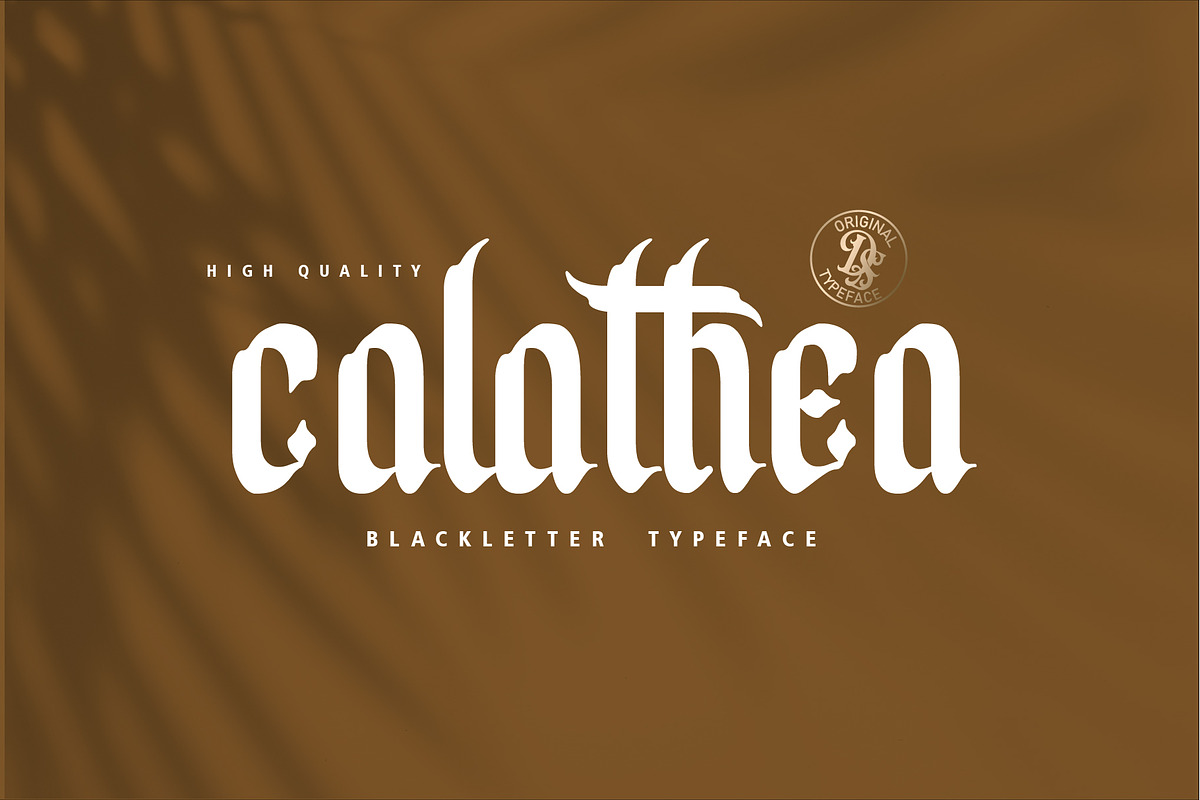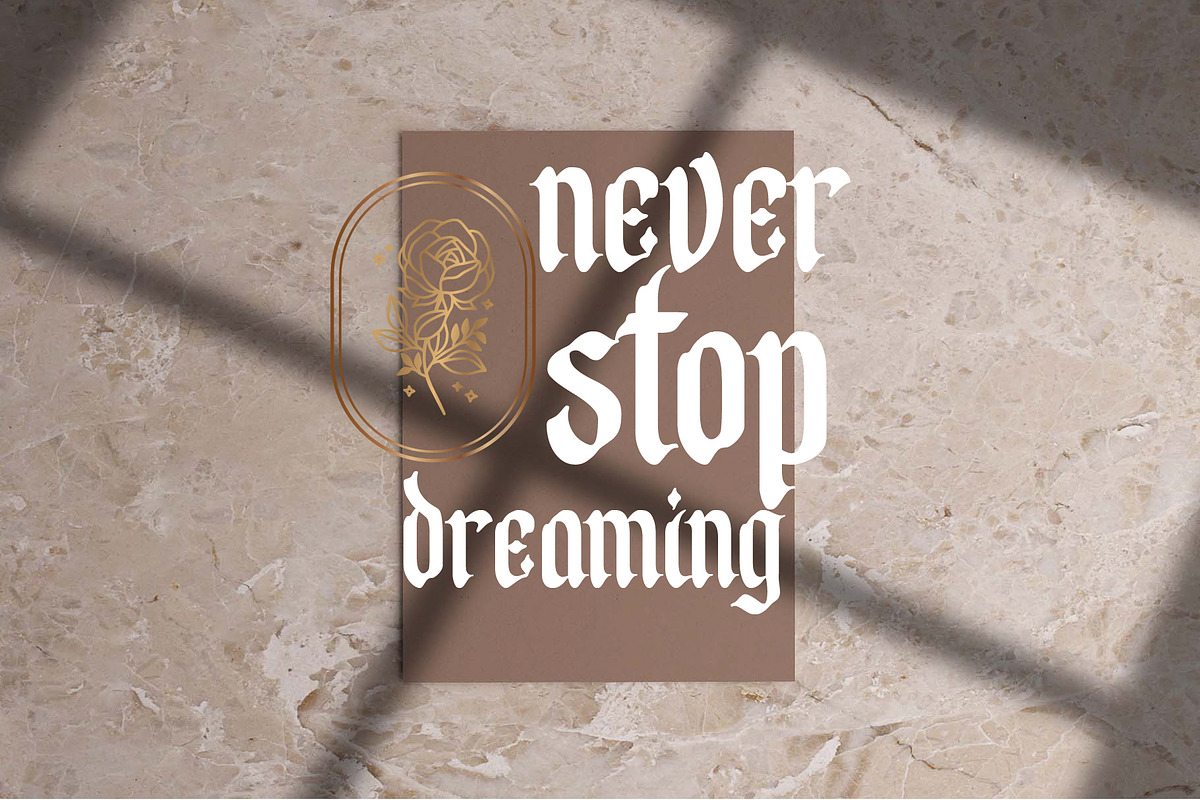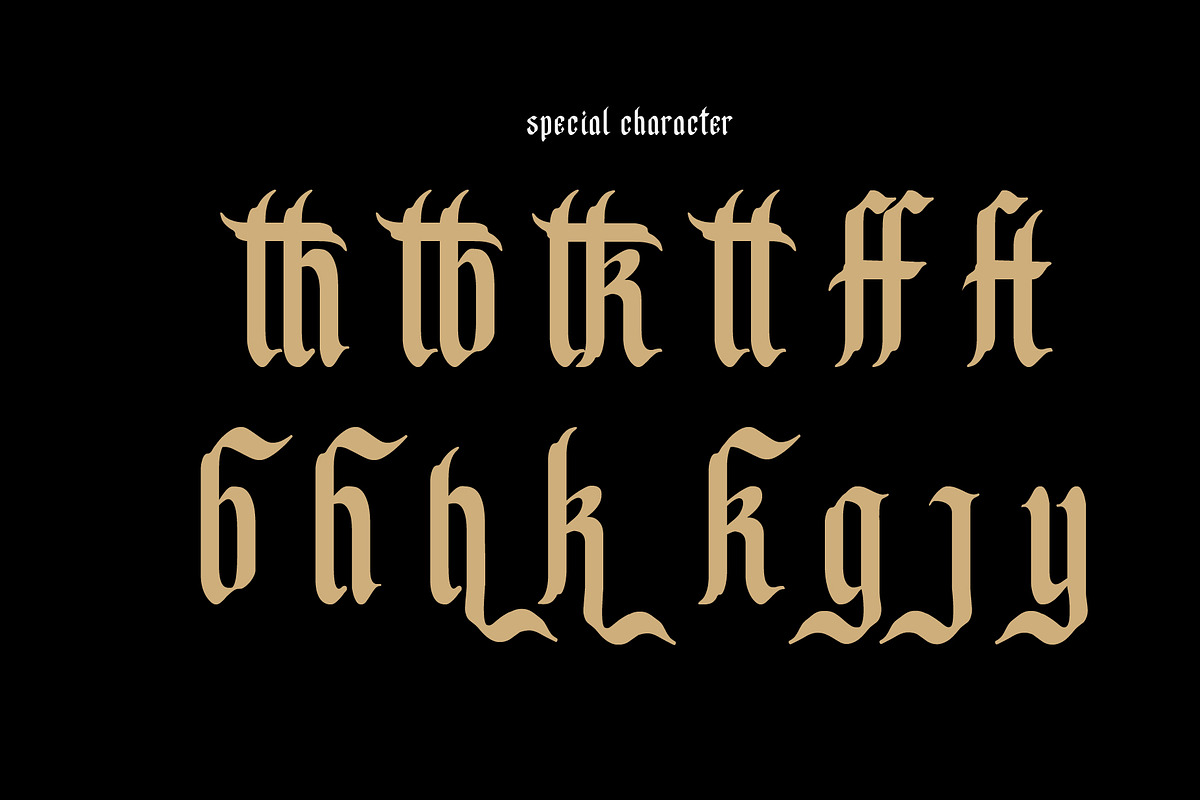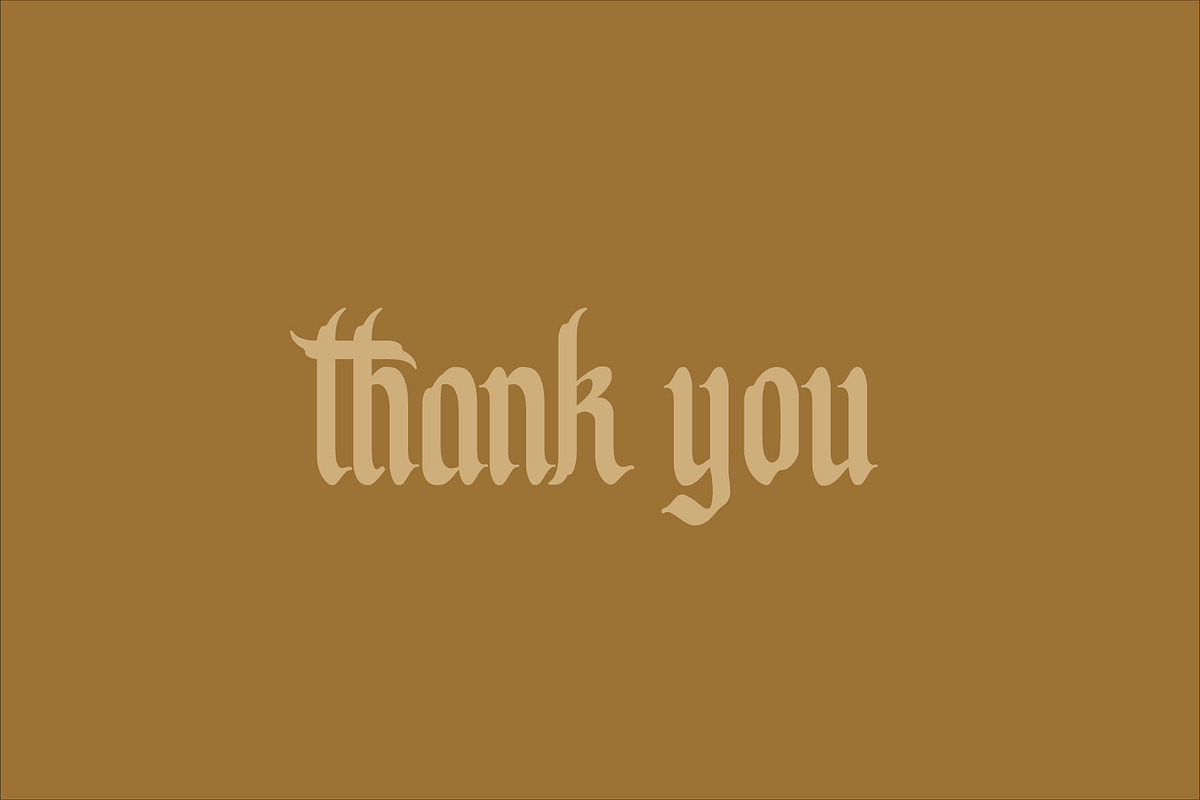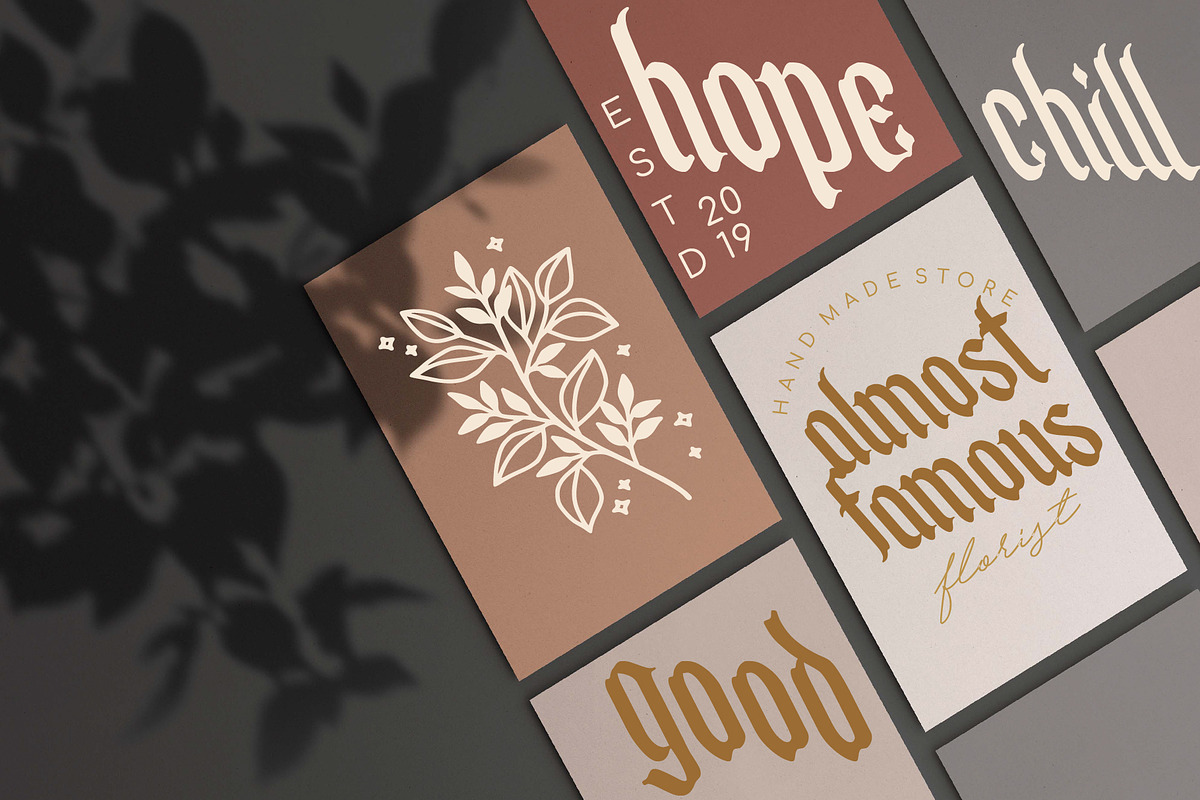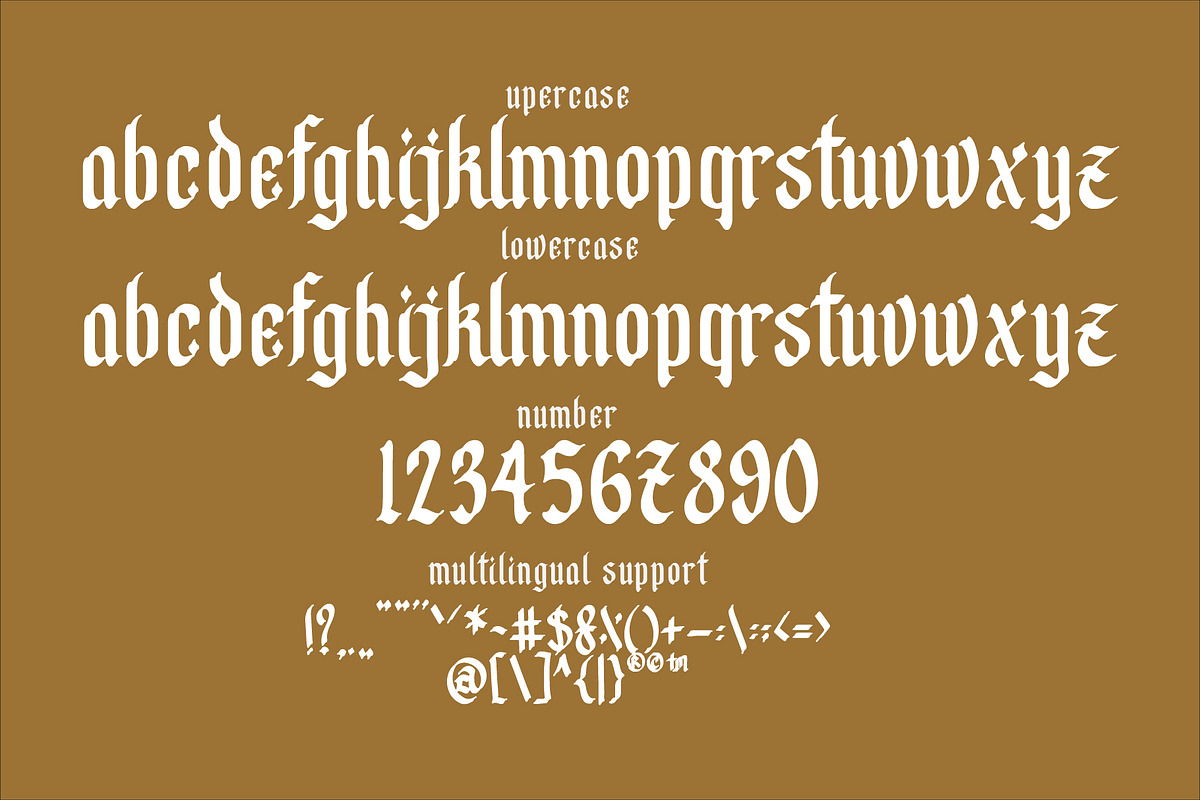
Calathea Blackletter Font
Dansdesign Proudly present our new product "Calathea Blackletter Font " This font is made with references to various letters that I combine and design with my style.
Calathea Blackletter Font are great and usefull for invitation, product logo, poster title, headline, packaging, badge, wedding card logo, clothing brand logo,Vintage design and much more
- Character Set A-Z (Uppercase & Lowercase)